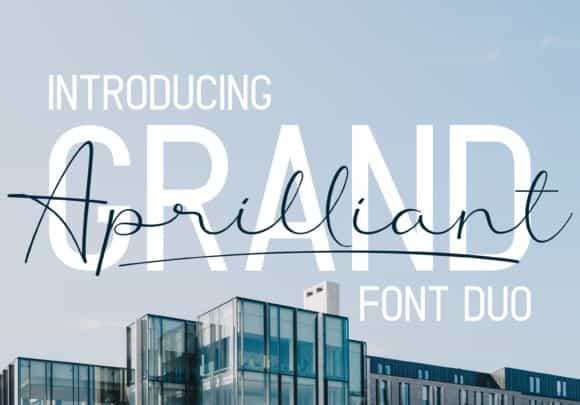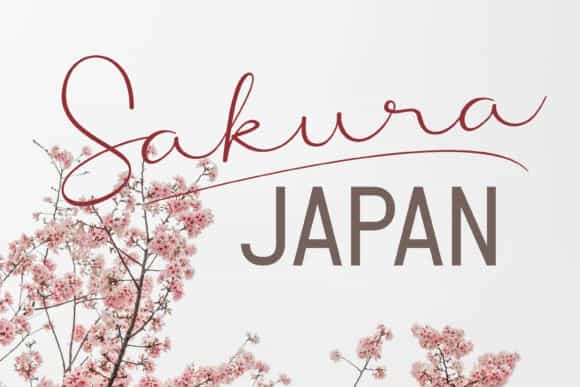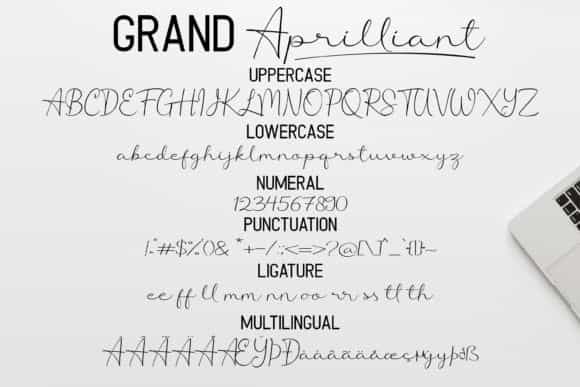
Discover Grand Aprilliant Font Duo, part of the Sans Serif Handwritten collection—a versatile and unique font perfect for adding a personal touch to your projects. Download it for free and enjoy crafting designs with style, from invitations to social media posts. This font is available exclusively for personal use, giving you the freedom to create without limits. Unlock your creativity with Grand Aprilliant Font Duo today!
Introducing Grand Aprilliant Font. The Grand Aprilliant is a lovely Font duo. It is available in two styles which can be combined together hence the perfect match; signature script and sans serif. It is flawless in the world of weddings, logos, greeting cards, branding, print ads, quotes. , signage and others.